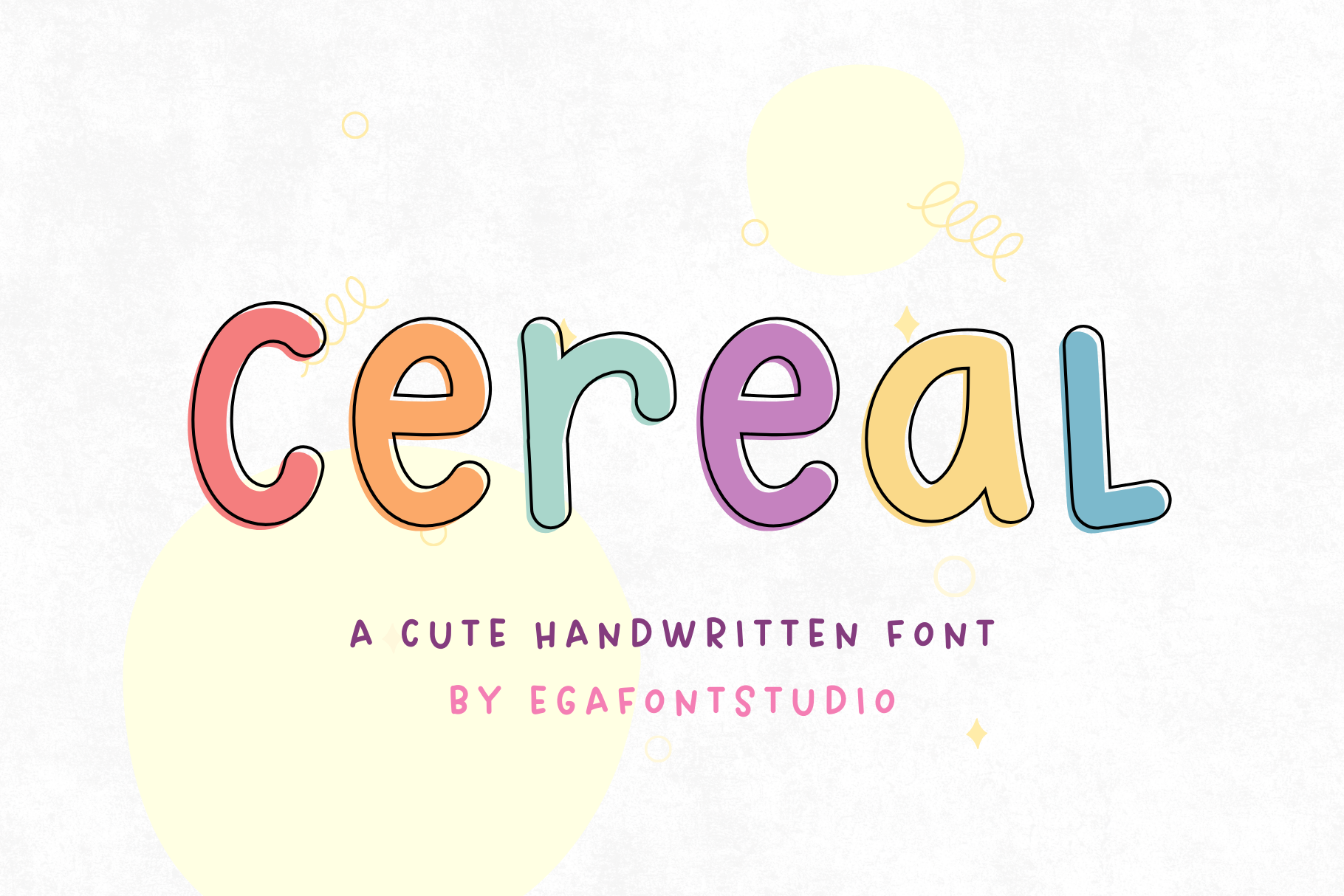
Cereal | Cute Handwritten Font
Introducing "Cereal" - a delightful handwritten font that adds a sprinkle of charm to your creative projects. Whether you're designing invitations, crafting greeting cards, or creating whimsical posters, Cereal brings a playful touch with its smooth, flowing strokes and quirky character.